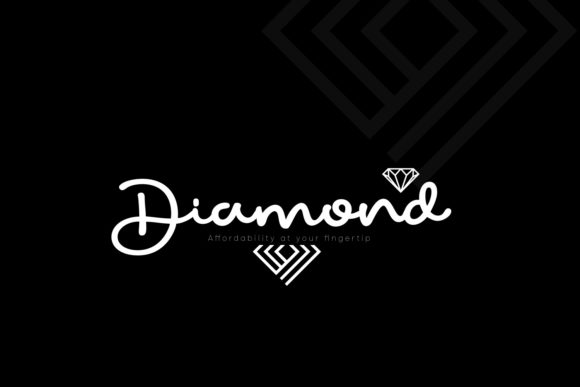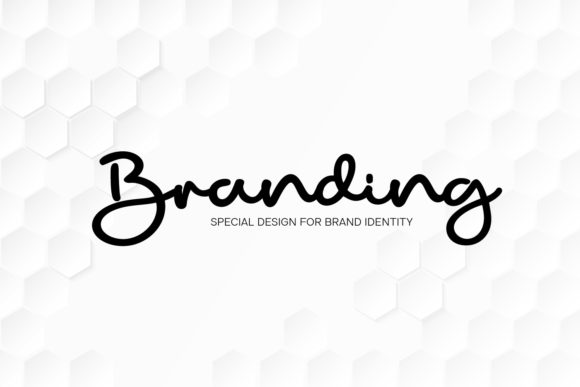
Pureline Font
db-ku.com - Script & Handwritten -- Pureline is a modern signature font, full of life and charm. Get inspired by its unique style and create outstanding designs!